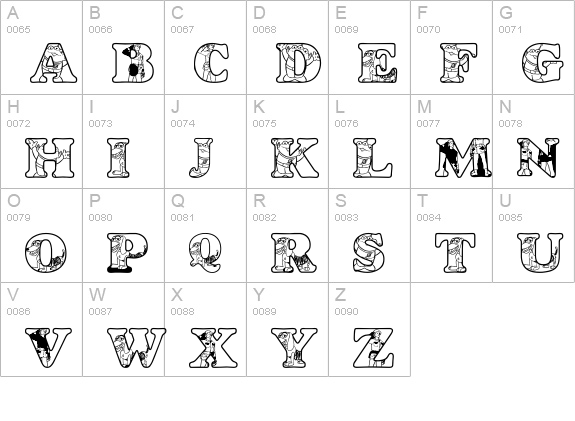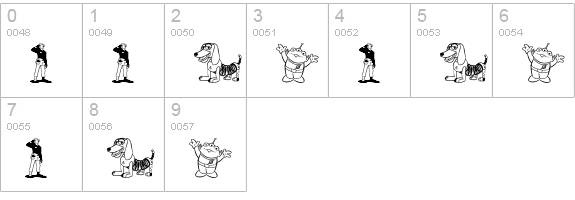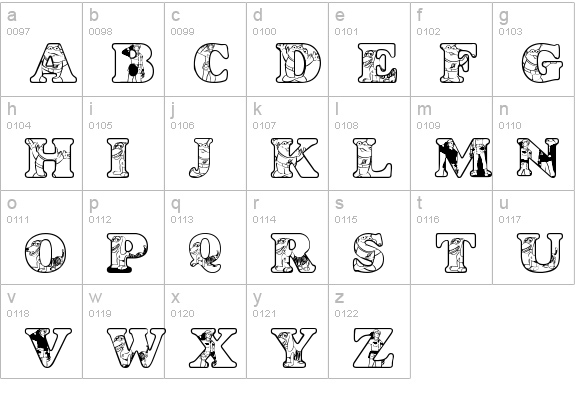
LMS Woody's Roundup Font Details
LMS Woody's Roundup font is a charming and playful typeface that captures the spirit of the Wild West. With its bold and whimsical letterforms, this font brings to life the adventures of Woody and his gang of lovable characters. Whether you're creating a poster for a cowboy-themed event, designing a fun-loving logo, or adding a touch of nostalgia to your digital artwork, LMS Woody's Roundup font is the perfect choice. One of the best things about LMS Woody's Roundup font is that it is available for free download at FontsMarket.com. This means that you can easily access and use this delightful font without any cost. It's a fantastic opportunity for designers, artists, and enthusiasts alike to have a high-quality font at their fingertips. The versatility of LMS Woody's Roundup font is another reason to love it. It can be used for both headline and body text, allowing you to create a cohesive and visually appealing design. The playful and slightly imperfect letterforms give your projects a unique and handcrafted feel, adding a touch of authenticity to your work. With its wide range of glyphs and characters, LMS Woody's Roundup font supports multiple languages, making it an excellent choice for international projects. Its legibility and readability ensure that your message will be conveyed effortlessly to your audience, no matter the language or context. So why wait? Download LMS Woody's Roundup font for free at FontsMarket.com and let your creativity run wild. Whether you're working on a personal project or a professional assignment, this font is sure to bring a smile to your face and capture the attention of those who see your work. Embrace the Wild West charm and let LMS Woody's Roundup font be your trusty companion on your creative journey.